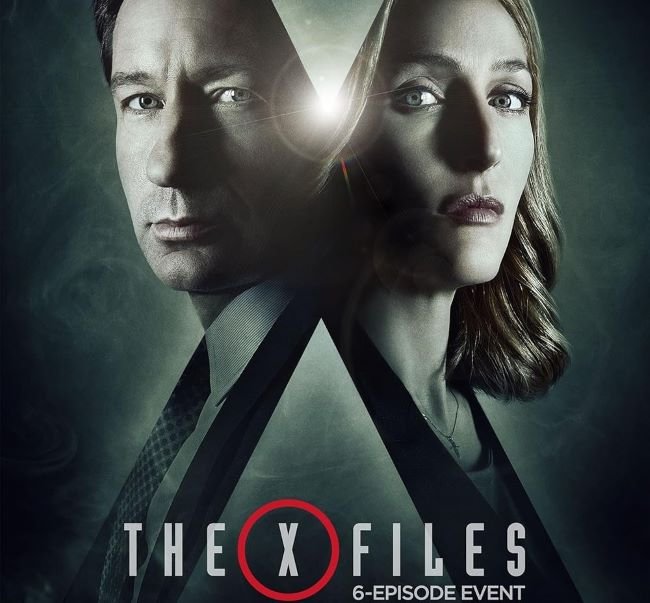
The X-Files Font is a clean minimalist sans-serif font with a cool, clinical precision that perfectly suits Chris Carter’s groundbreaking sci-fi series — premiering on Fox in 1993 — which followed FBI agents Fox Mulder and Dana Scully as they investigated cases involving paranormal phenomena, government conspiracies, and the blurry boundary between documented fact and suppressed truth. The typeface’s sleek restraint communicates the show’s double register: institutional authority on the surface, something deeply unsettling underneath it. The truth is out there, and this font looks like it knows where.